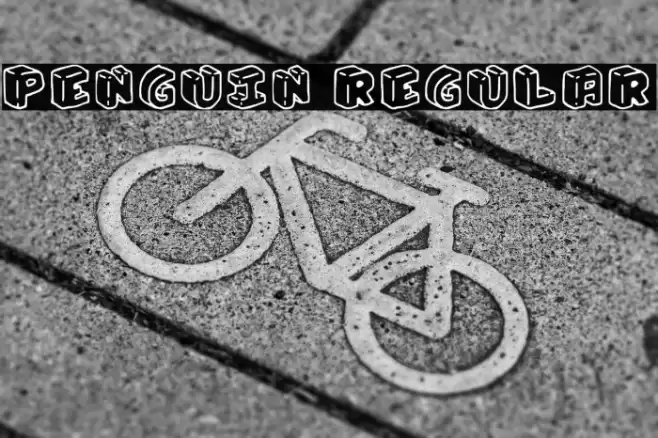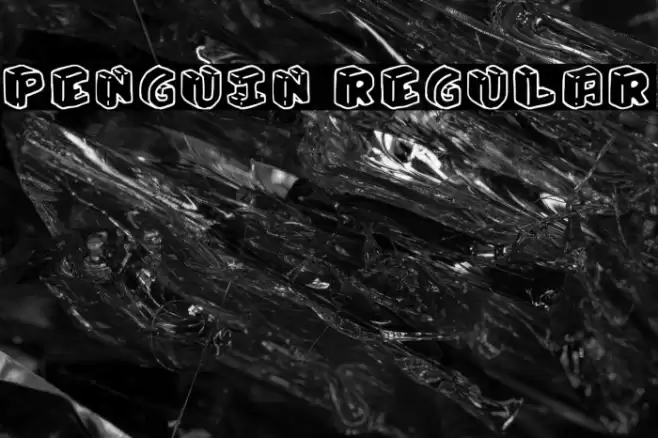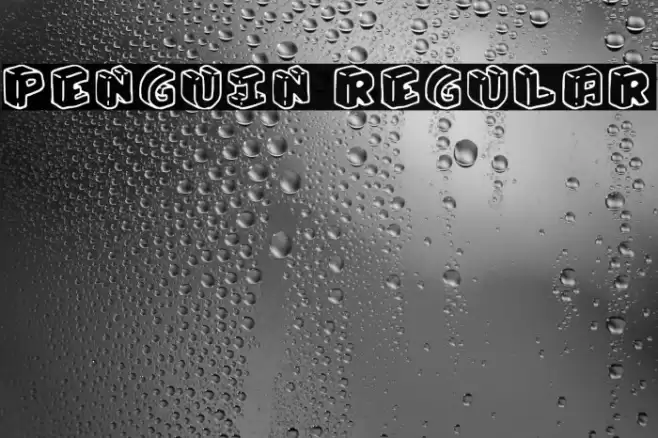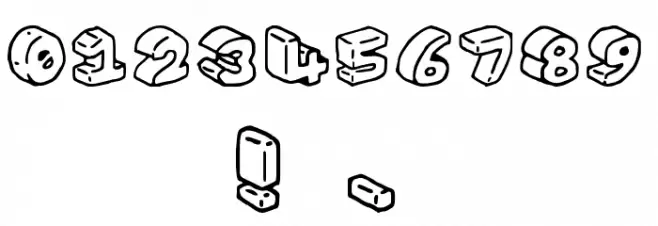
Penguin Regular Font
Penguin Regular Description
This playful and bold 3D font features a unique, hand-drawn style with a cartoonish flair. Each character is outlined with a thick black line, giving it a strong presence and a sense of depth. The letters and numbers are designed with a blocky, geometric structure, which adds to their whimsical and fun appearance. The font's quirky and informal style makes it ideal for projects that require a touch of creativity and humor. Its distinct look is perfect for capturing attention and conveying a lighthearted message.
A playful, bold 3D font with a hand-drawn, cartoonish style from Uncategorized fonts.
- Proposed Projects: Ideal for children's books, comic strips, playful branding, and creative posters.
- Overall Style: Playful, Cartoonish, Creative